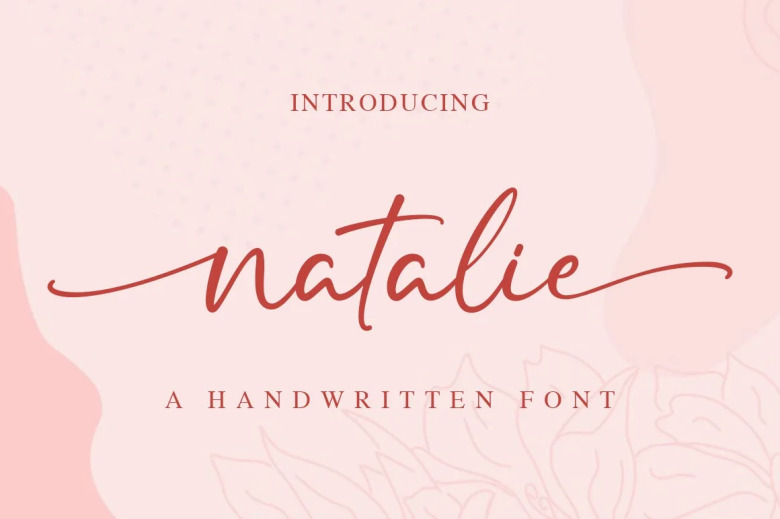
Natalie Font
Natalie is a thin lettered and graceful Handwritten Script font. Get attracted to its ravishing style and utilize it in designing beautiful wedding invitations, stunning stationary art, eye-catcher social media posts and much more. Natalie is PUA encoded; that means you can access all of the glyphs and swashes easily!
Natalie Handwritten Script Font